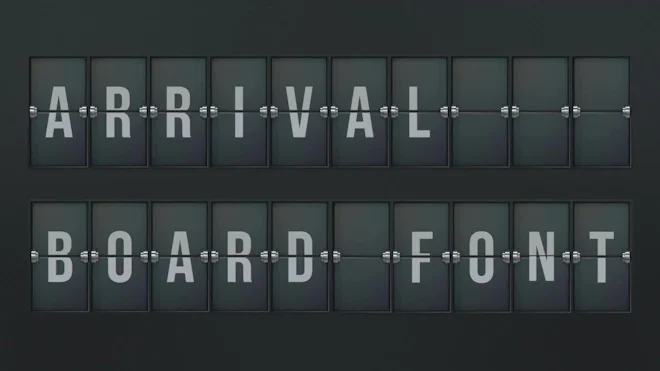
Arrival Board Split-Flap Font Pack is an exciting stock motion graphics pack that shows the signs used to announce plane arrivals. The pack contains split-flap letters, numbers, and symbols that flip open to show new information. This is a super versatile product to write text or numbers, to build announcement signs, counters or a clock display. This package comes in 3840 x 2160 (4K) . Incorporate this footage in your next project where you want to use fonts for an airport setting. This will work great for your intro, YouTube video, etc. Download today.